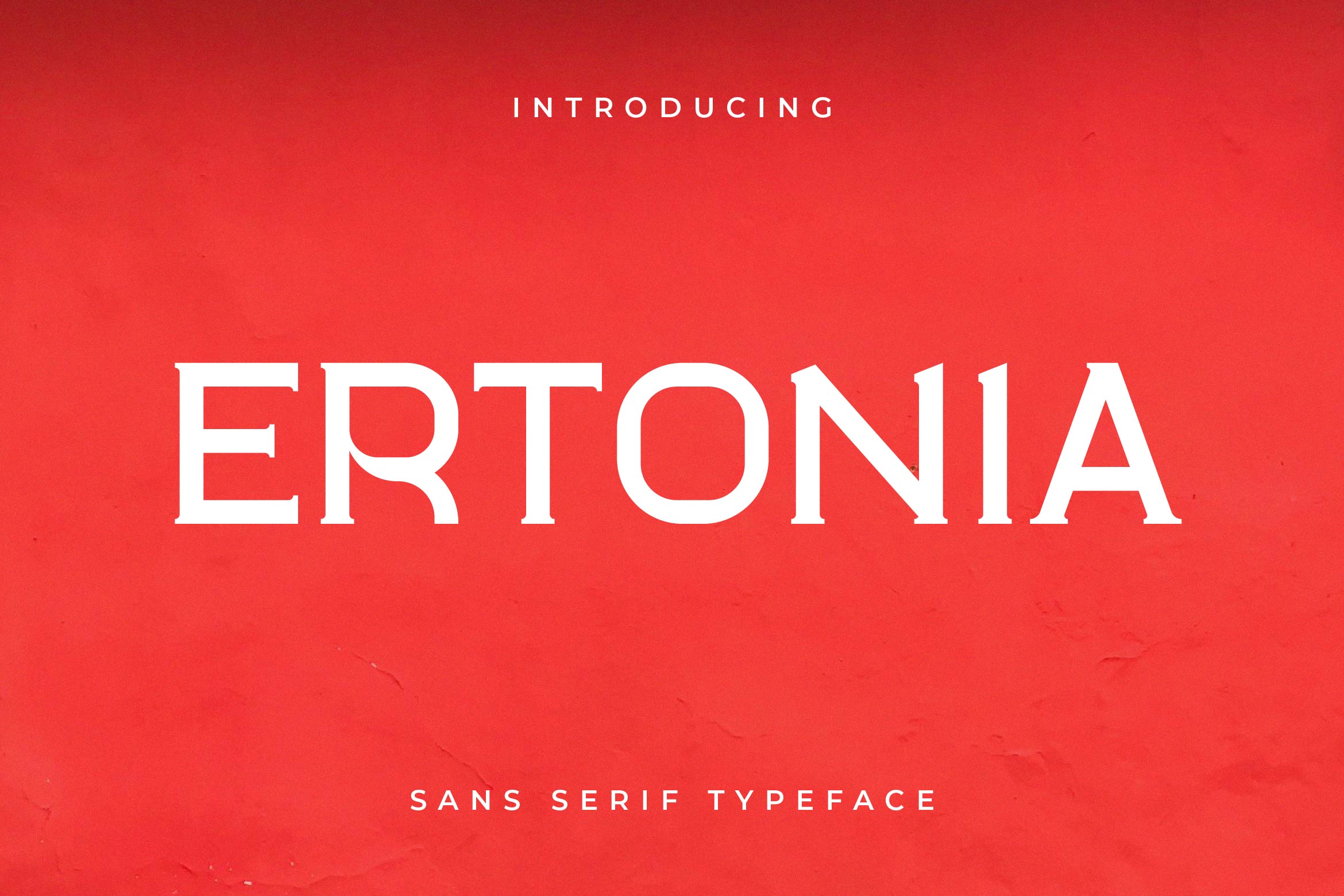
- Ertonia Clean Serif Font
Ertonia is a clean and versatile serif font that combines minimalist design with contemporary elegance. Its balanced proportions, smooth curves, and geometric structure make it perfect for branding, editorial layouts, packaging, digital content, and UI/UX projects.
Designed for flexibility, Ertonia works beautifully for both bold headlines and refined body text, ensuring exceptional readability in print and on screen. Its modern aesthetic adds sophistication without unnecessary complexity, making it suitable for fashion, tech, and lifestyle brands.
The font includes uppercase and lowercase letters, numerals, punctuation, multilingual support, and stylistic alternates for creative variety.
Bring clarity and elegance to your designs with Ertonia — the sans serif that blends modern precision with timeless simplicity.